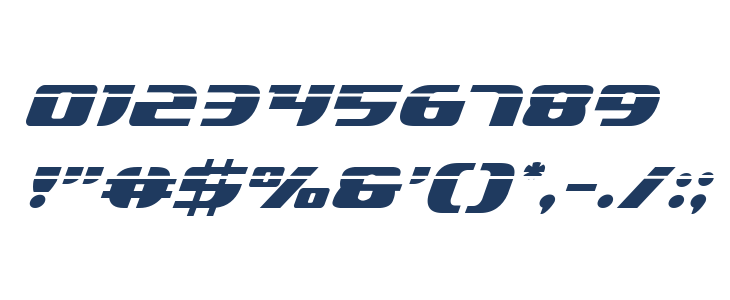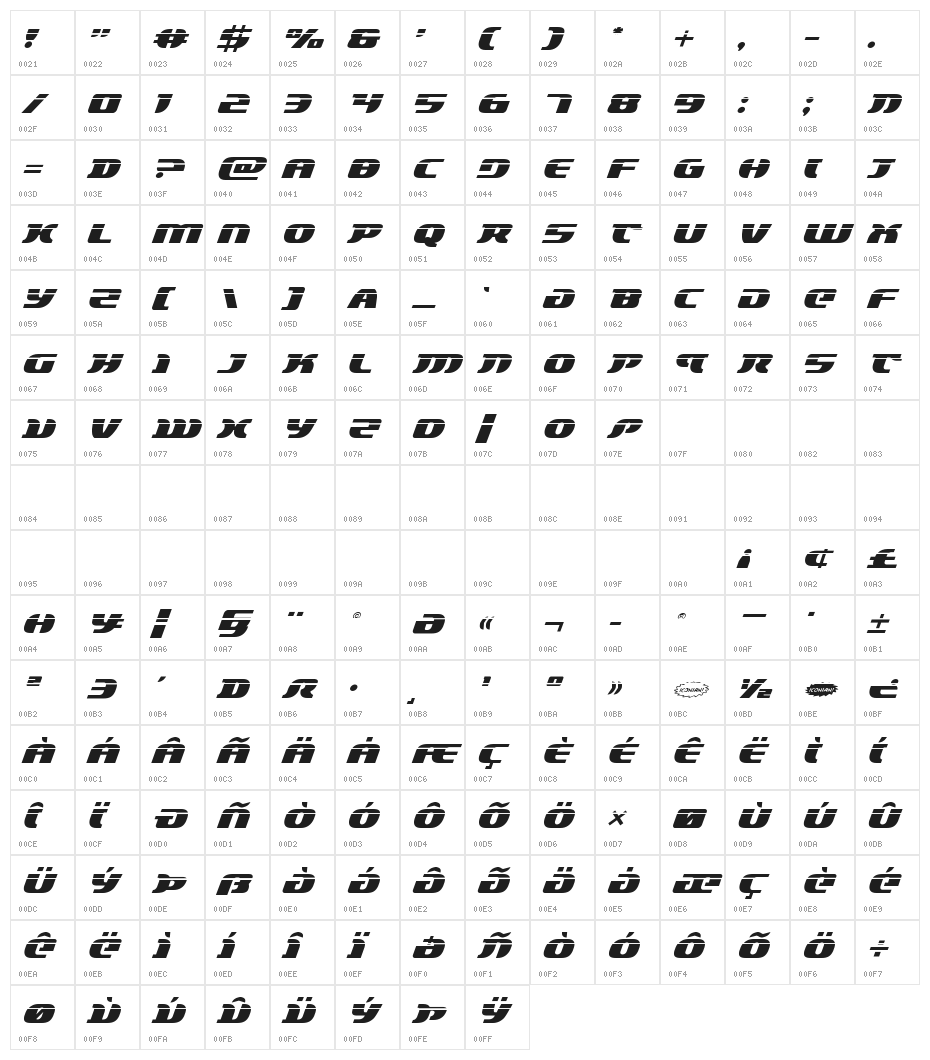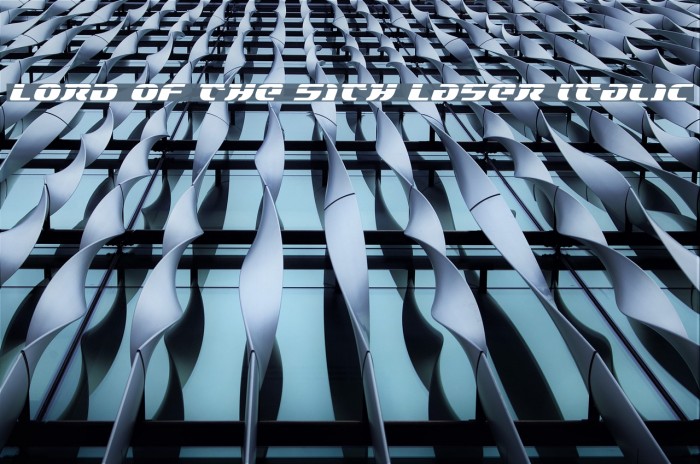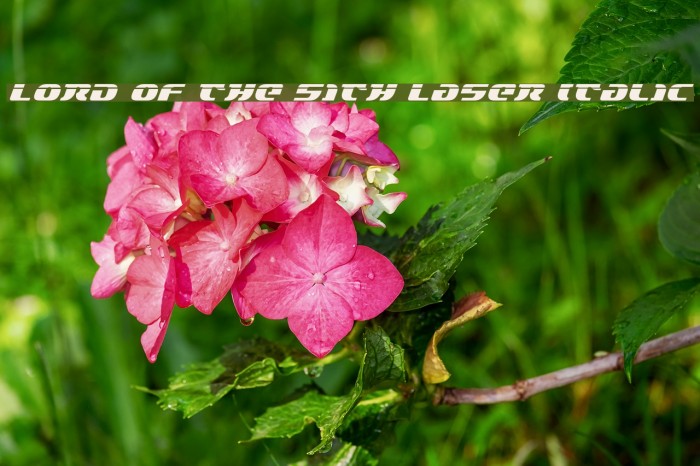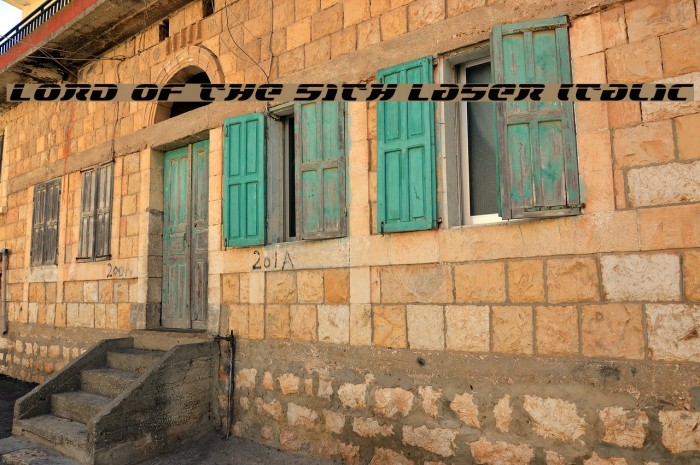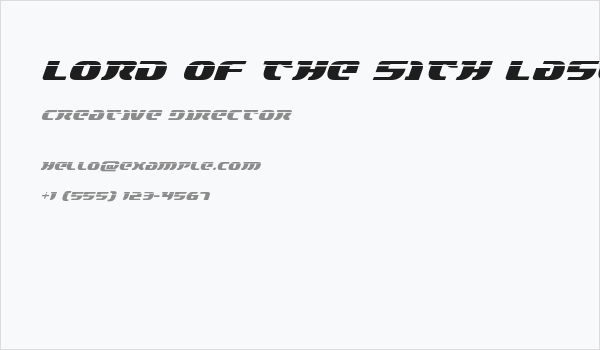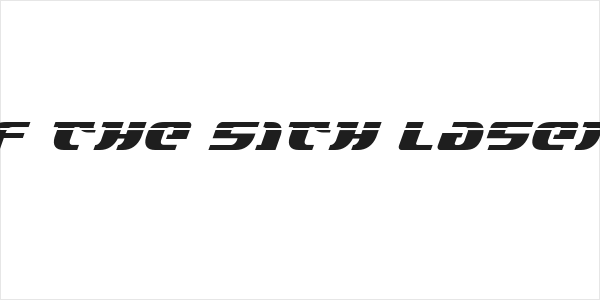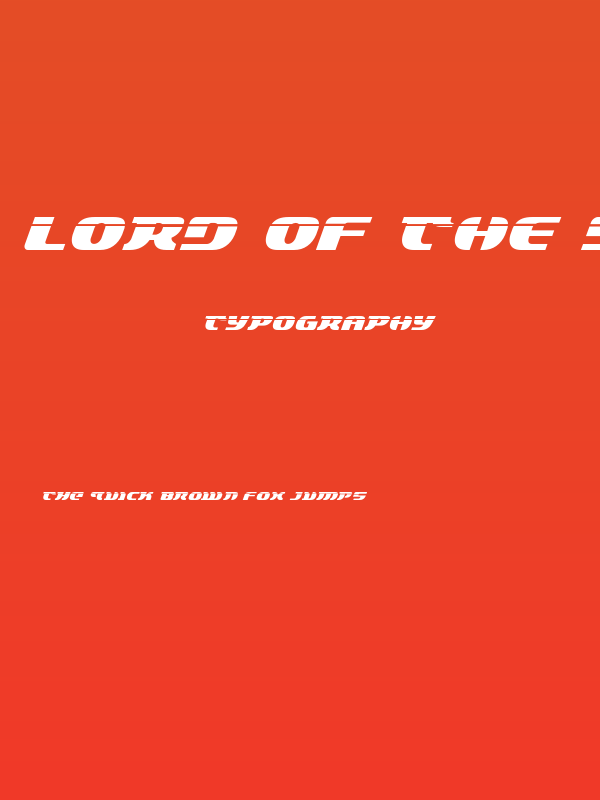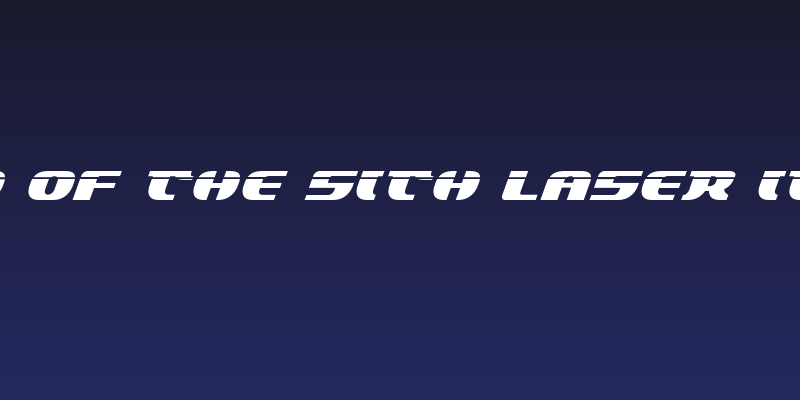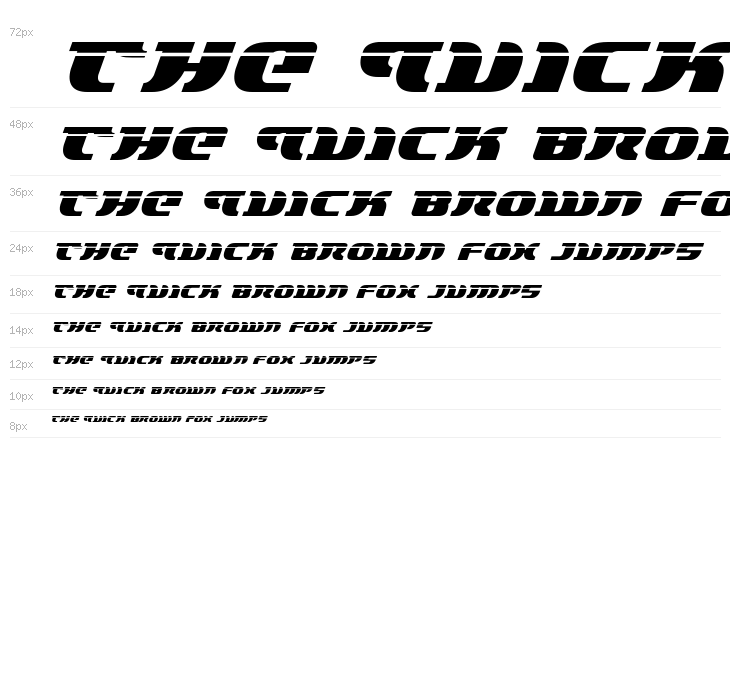
Lord of the Sith Laser Italic Font
Lord of the Sith Laser Italic Description
This font features a futuristic and dynamic design with sharp, angular edges and a distinct italic slant. The characters are bold and have a strong presence, making them ideal for impactful designs. The style is reminiscent of science fiction themes, with a sleek and modern aesthetic. The uppercase and lowercase letters maintain a consistent style, while the numbers and special characters complement the overall look. The font's design suggests movement and energy, making it suitable for projects that require a bold and modern touch.
| Proposed Projects | Ideal for sci-fi themed posters, video game titles, and futuristic branding. |